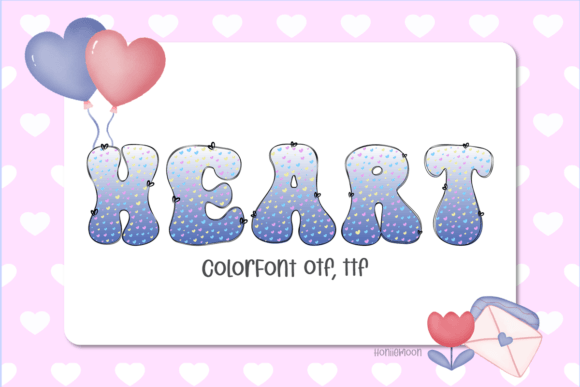
Do you remember the first time you fell in love with a font? Maybe it was the quirky, handwritten feel of a favorite script or the bold, playful vibe of a display font. For me, it was the moment I stumbled upon the Heart Font – a cute and colorful display font that embodies the perfect blend of playfulness and authenticity.
Designed with children’s activities and school projects in mind, Heart Font is the perfect addition to any design. Its chunky lettered charm makes it impossible to resist, and its versatility ensures it can be used in a wide range of applications, from posters and flyers to digital graphics and social media posts. As a designer, you’ll appreciate the value of incorporating Heart Font into your work – it adds a touch of whimsy and personality that’s sure to delight your audience.
Heart Font Key Features
- Font Family: Heart Font is a sans-serif font family designed to convey a sense of warmth and love.
- Unique Characteristics: Heart Font features a unique, hand-drawn design with subtle rounded edges and a friendly feel.
Designer Review: Heart Font
First impressions count, and Heart Font ✨ does not disappoint. Its playful, whimsical feel is perfect for anything from Valentine’s Day promotions to children’s products. The font’s rounded edges and gentle curves create a sense of approachability and friendliness that’s hard to resist.
- Playful, whimsical feel perfect for creative projects
- Range of weights and styles for versatility
- May not be suitable for formal or professional projects
- Lack of high-contrast variants for readability
Overall, Heart Font ✨ is a great choice for designers looking for a playful, approachable font. While it may have some limitations, its versatility and open-source license make it a valuable addition to any design toolkit.
The Heart Font is perfect for creating romantic and playful designs. Some common use cases include:
- Valentine’s Day cards and decorations
- Children’s birthday party invitations and decorations